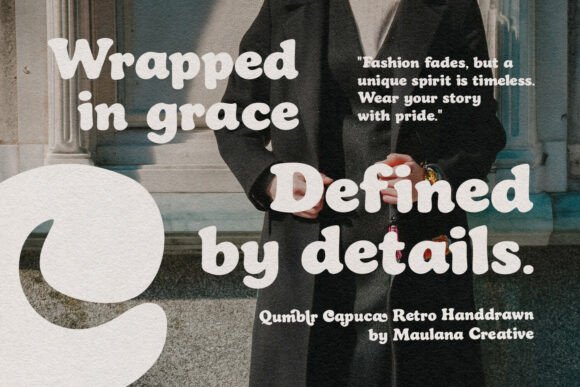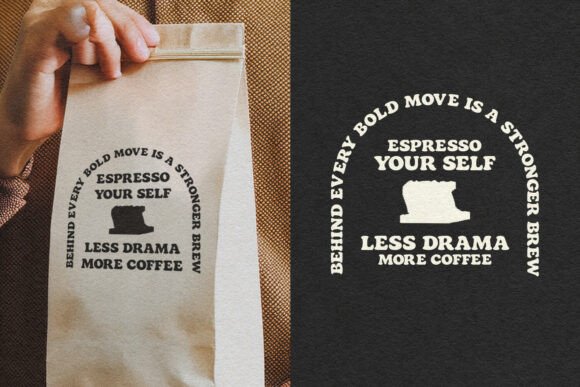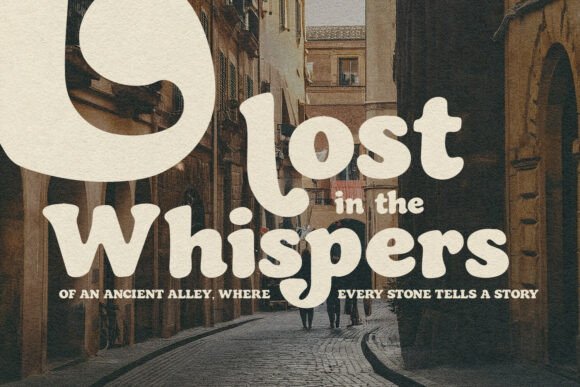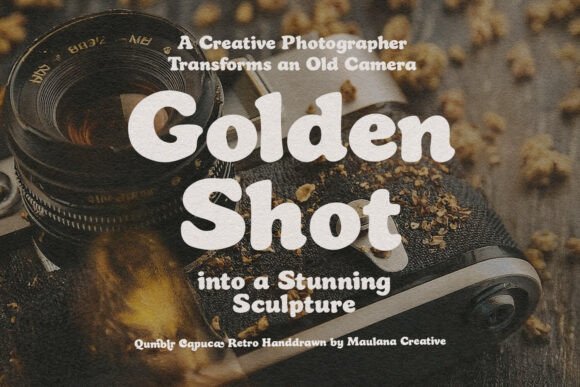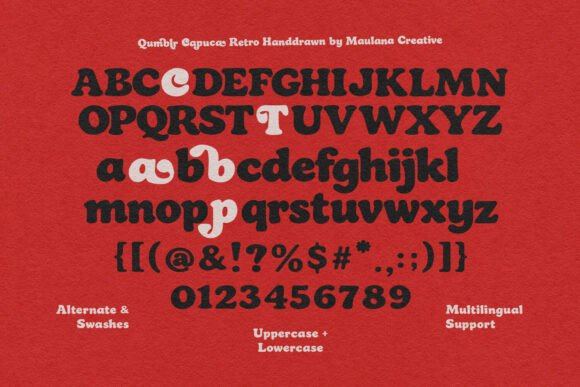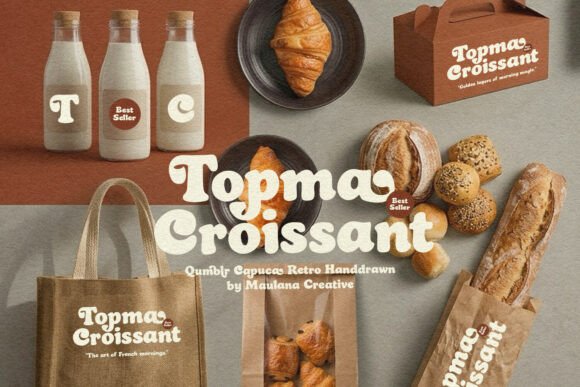
Step into the Groovy World of Qumblr Capuca Font
Do you remember the feeling of pouring over vintage design books in a dusty thrift store, searching for the perfect font to add a touch of retro charm to your creative project? For designers, it’s that magical moment when the right typography brings a design to life. Today, we’re excited to introduce you to Qumblr Capuca Font, a hand-drawn serif font that embodies the carefree spirit of the 1970s.
With its bold, curvaceous letterforms and playful swashes, Qumblr Capuca Font is the perfect design resource for anyone looking to add a touch of high-quality, nostalgic charm to their work. Whether you’re crafting a vintage-inspired brand identity, eye-catching editorial headlines, or stylish lifestyle packaging, this versatile font offers a unique balance of personality and professional craftsmanship. And the best part? It’s available for free download, making it an accessible and valuable resource for designers of all levels.
Key Features of Qumblr Capuca Font
- High-quality design resource ideal for creative projects, offering a unique and stylish aesthetic.
Honest Review: Qumblr Capuca Font
As a designer, I’m always on the lookout for high-quality design resources that can elevate my creative projects. Recently, I stumbled upon the Qumblr Capuca Font, and I’m excited to share my thoughts on it.
- ✨ Unique and modern design aesthetic that’s perfect for creative projects that require a touch of sophistication
- ✨ High-quality font that’s crisp and clear, even at smaller font sizes
- ✨ Transparent background option allows for seamless integration with any design element
- ⚠️ Limited character set, which may not be ideal for projects that require a wide range of special characters
Overall, I’m impressed with the Qumblr Capuca Font, and I think it’s a great addition to any designer’s toolkit. While it may have some limitations, its unique design aesthetic and high-quality rendering make it a great choice for creative projects that require a touch of elegance.
Tips for Getting the Most Out of Qumblr Capuca Font
Experiment with different font sizes, colors, and combinations to create unique designs. Use the font in conjunction with other design resources to add depth and visual interest to your project.
The Qumblr Capuca Font is ideal for creative projects that require a high-quality, unique font. Use it for branding, marketing materials, or any design project that demands attention to detail.
Can I use Qumblr Capuca Font with a transparent background?
Yes, Qumblr Capuca Font supports transparent backgrounds, making it perfect for designs that require a subtle, non-distracting look. Simply use the font with a transparent background image or layer to achieve the desired effect.
What is the recommended usage for Qumblr Capuca Font?
Qumblr Capuca Font is designed for general use, including digital and print projects. However, we recommend using it for body text, headings, and titles, as it’s optimized for readability and aesthetic appeal.